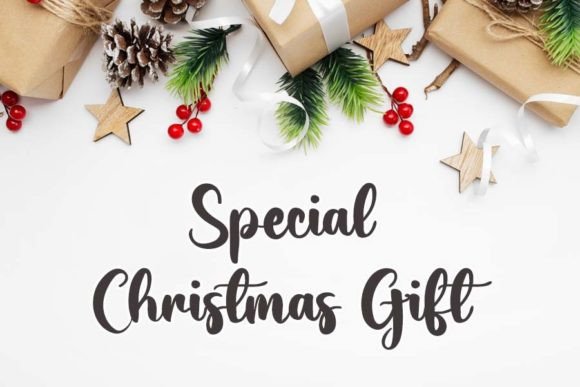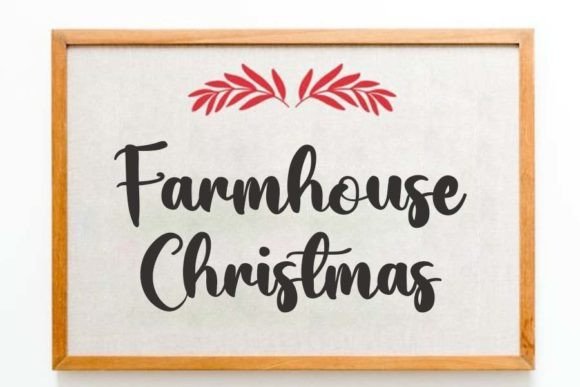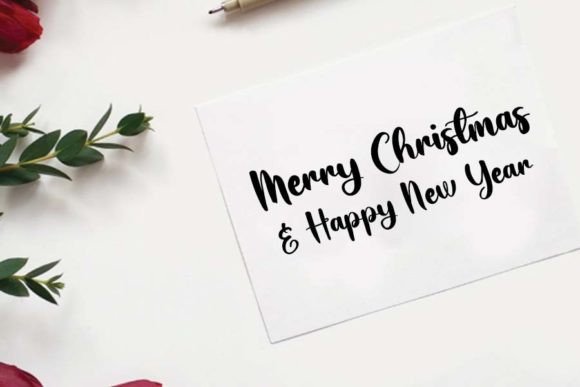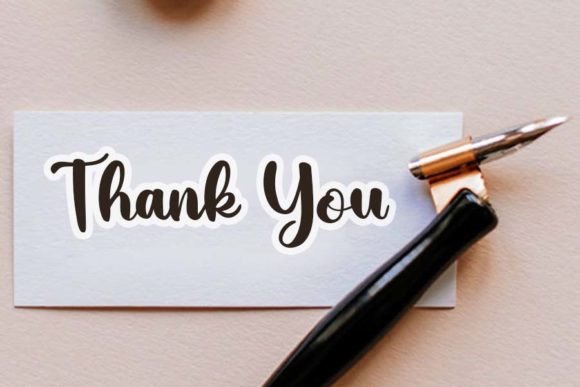
Christmas Signature Font
A Beautiful Handwritten Typeface
The Christmas Signature Font is a beautiful handwritten typeface that combines feminine charm and elegance. Its flowing, graceful design makes it perfect for a wide variety of projects, from logos and invitations to blogs and headlines. Whether you’re designing for a holiday project or a formal event, this font adds a sophisticated, personalized touch to your designs.
Ideal for Logos and Branding
If you’re creating a logo or working on branding materials, the Christmas Signature Font is an excellent choice. Its elegant, handwritten style gives your brand a unique, stylish appearance. Perfect for businesses looking to convey sophistication, this font works well across various industries, from wedding planning to beauty brands, ensuring your branding stands out with a personal, yet polished touch.
The Christmas Signature Font shines in invitations and greeting cards, adding a feminine, elegant flair to your designs. Whether you’re designing for a holiday party, wedding, or a special event, this font’s graceful curves and flowing strokes make it ideal for creating memorable invitations that feel both personal and refined. Its timeless elegance makes it perfect for any occasion where sophistication is key.
Great for Blogs and Headlines
In addition to its use in logos and invitations, the Christmas Signature Font is perfect for blogs and headlines. Its striking design ensures that it captures attention, making it an excellent choice for adding a standout touch to your content. Whether you’re working on a holiday blog post, a personal website, or creating eye-catching headlines, this font enhances the overall design, making it both stylish and readable.
Elegant and Feminine Design
The Christmas Signature Font offers a feminine and elegant look, making it perfect for projects that require a delicate, personalized touch. Its flowing script gives your designs a sense of grace and refinement, making it ideal for more formal or celebratory projects. Whether used for holiday designs or year-round content, the font adds an extra layer of sophistication.
Versatile for Multiple Creative Projects
One of the standout features of the Christmas Signature Font is its versatility. While it’s perfect for wedding invitations, holiday greeting cards, and logos, it can also be used for advertising, social media content, magazines, and more. Whether for personal projects or professional materials, this font elevates any design with its timeless charm.
Easy to Use and Access
The Christmas Signature Font is designed to be both beautiful and practical. With easy-to-read characters and a user-friendly structure, it’s accessible for both novice designers and professionals. Whether you’re creating a small holiday greeting or a brand logo, this font is versatile and easy to use across a variety of design platforms, making it suitable for all your creative needs.
Add Elegance to Every Design with Christmas Signature Font
If you’re looking to add a personalized, handwritten touch to your designs, the Christmas Signature Font is the perfect choice. Whether you’re designing logos, invitations, blogs, or headlines, this beautiful handwritten typeface enhances the elegance of your project, leaving a lasting impression on your audience.